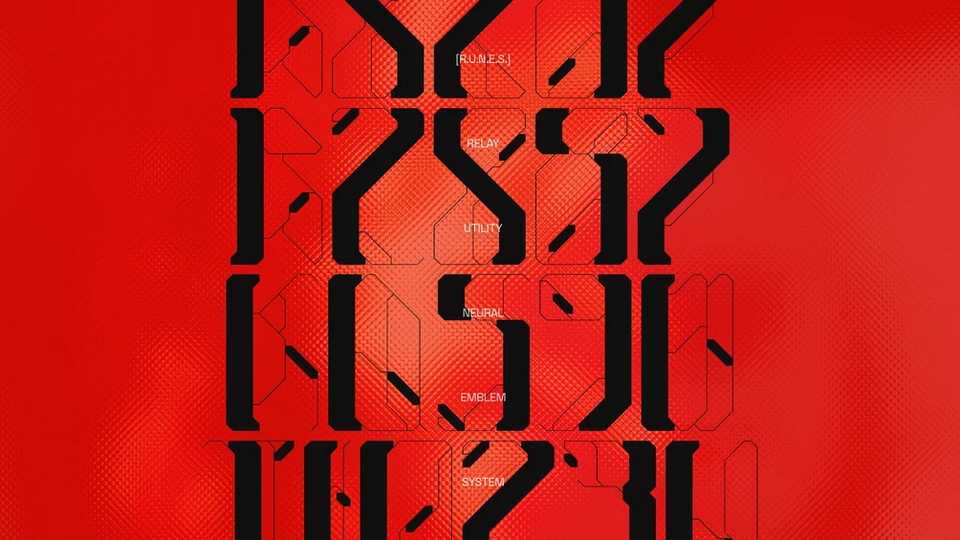
Download R.U.N.E.S. font, a highly-decorative futuristic display typeface. Its creation was driven by a particular cyberpunk aesthetic, merging chamfered military-like strokes with the complex patterns of electrical circuits, achieving a contemporary set of glyphs built for the future.